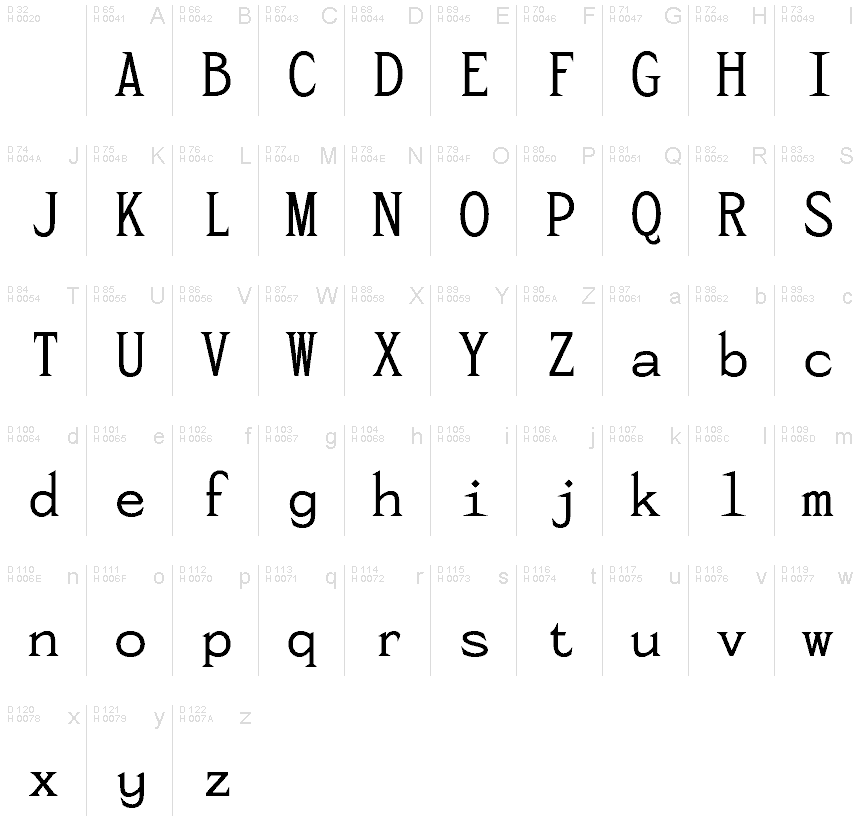
CS Camilo Mono Regular Demo
CS Camilo Mono font by Craft Supply Co. is a free serif font with a classic elegant style perfect for projects that require a professional formal appearance. Simplicity, readability, and wide versatility define this typeface which you can manipulate with uppercase characters, lowercase characters, and numerals.
The beautiful serif letters included in the download are ideal for logos and branding designs in addition to titles, labels, headlines, magazine covers, newspapers publications, ads posters or banners and more.